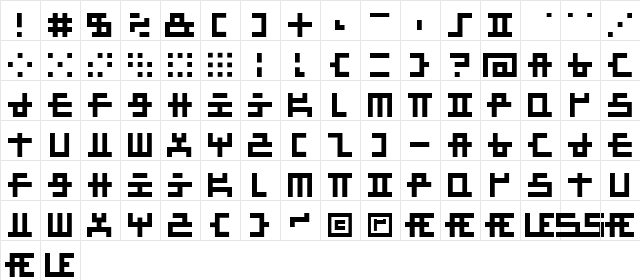
Mischstab Umbrella Patina Regular
Design Context for Mischstab Umbrella Patina Typeface
Mischstab Umbrella Patina is a composed and adaptable typeface that performs quietly and consistently across a wide range of design contexts.